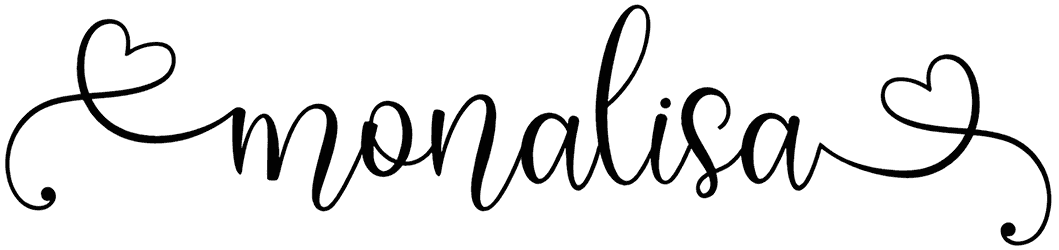
Monalisa Font
With a melodious and sweet face, your words can make everyone fall in love with your design. As a modern calligraphy font, Monalisa is a lovely choice for lots of projects such as wedding cards, logotypes, apparel, mugs,…
With a melodious and sweet face, your words can make everyone fall in love with your design. As a modern calligraphy font, Monalisa is a lovely choice for lots of projects such as wedding cards, logotypes, apparel, mugs, and so forth. With almost full support for characters, this Valentine font is a nice decoration that will reflect your creativity.